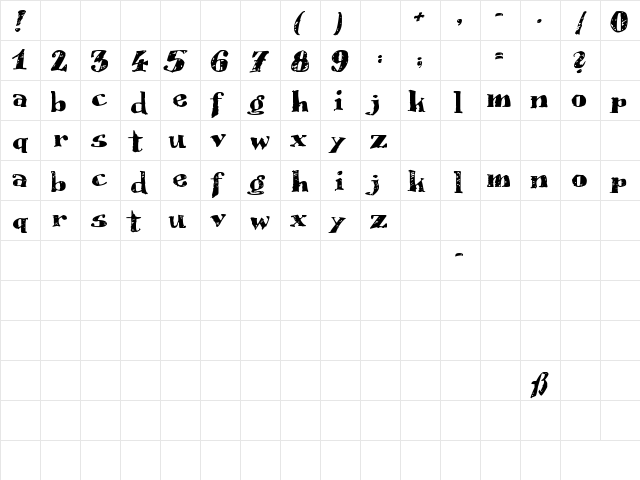
Scrubble Regular
Design Context for Scrubble Typeface
Scrubble is a composed and adaptable typeface that performs quietly and consistently across a wide range of design contexts.
Pro Tip: Use Scrubble in both headline and body roles to test its range before committing to a single application.